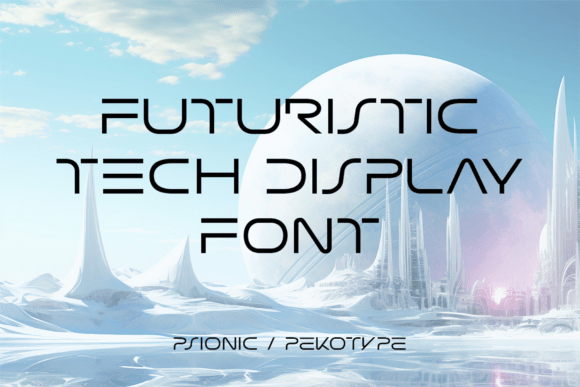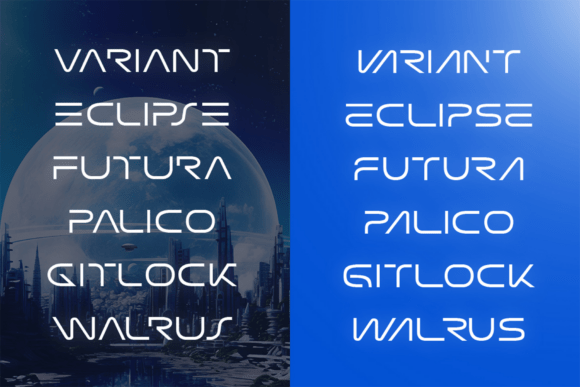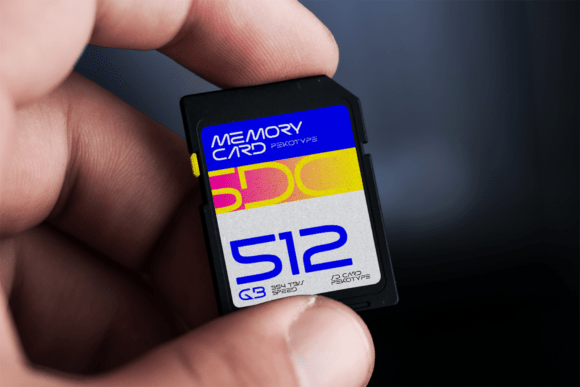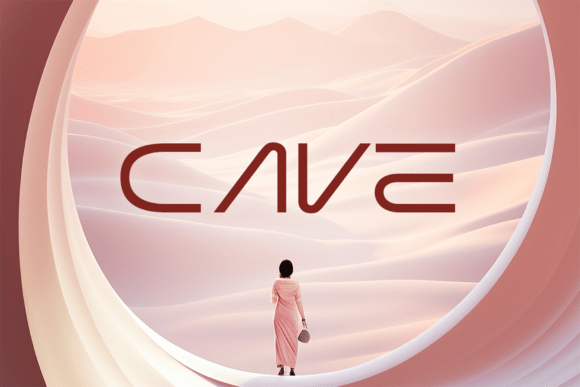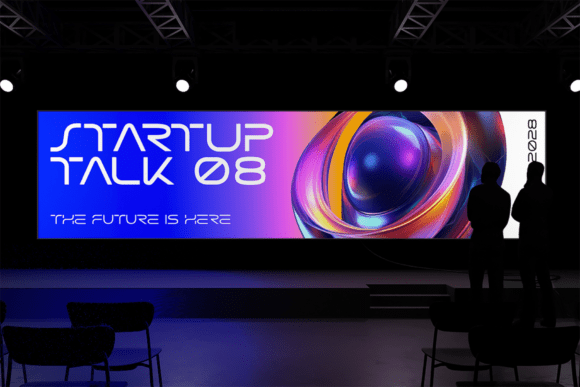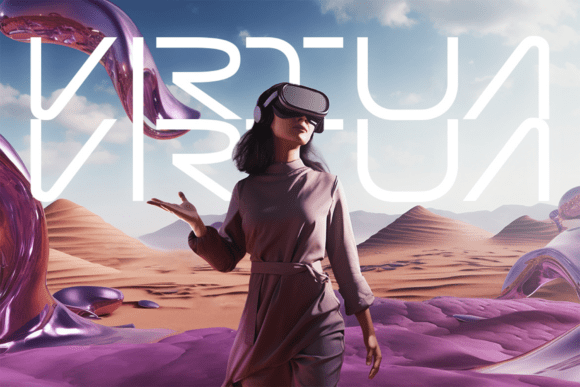
Introduction to Psionic Font
As a designer, you know that finding the perfect font can make all the difference in bringing a creative project to life. It’s that moment when you stumble upon a design resource that perfectly captures the essence of your vision, and suddenly everything falls into place. For me, that moment came when I discovered the Psionic Font – a game-changing, high-quality display typeface that’s taken the design world by storm.
With its sleek, futuristic design and sharp angles, the Psionic Font is the perfect addition to any high-tech branding, movie title, or digital merchandise. Whether you’re working on a sci-fi project or a tech startup, this font brings a next-gen feel that’s sure to impress. And the best part? It’s available for free download, making it a valuable resource for designers of all levels.
Key Features of Psionic Font
- High-quality design resource with a unique, futuristic aesthetic, ideal for creative projects.
- Designed with precision and attention to detail, ensuring a professional finish for any project.
- Perfect for designers, artists, and creatives looking for a distinctive and modern design resource.
Honest Review: Psionic Font
I recently had the chance to experiment with the Psionic Font, and I must say it’s a high quality design resource that can elevate any creative project. One of the standout features of this font is its versatility – it’s perfect for titles, headings, and even body text. The transparent background makes it incredibly easy to use, allowing you to focus on the content rather than the font itself.
- ✨ High quality design that’s perfect for creative projects
- ✨ Versatile font that can be used for titles, headings, and body text
- ✨ Transparent background makes it easy to use
That being said, there are a few limitations to consider:
- ⚠️ The font may not be suitable for projects that require a lot of font customization
Overall, I’m really impressed with the Psionic Font. It’s a great design resource that’s perfect for anyone looking to add a touch of elegance to their creative project. And the best part? It’s available for free download, making it an excellent choice for designers on a budget.
Getting the Most Out of Psionic Font
To get the most out of Psionic Font, use it in conjunction with other design elements, such as images and graphics, to create a visually appealing design. Experiment with different font sizes, colors, and styles to achieve a unique look. You can also use the transparent background feature to create a sense of depth and dimension.
The Psionic Font is perfect for creating high-quality designs for various projects, including:
- Posters and social media graphics